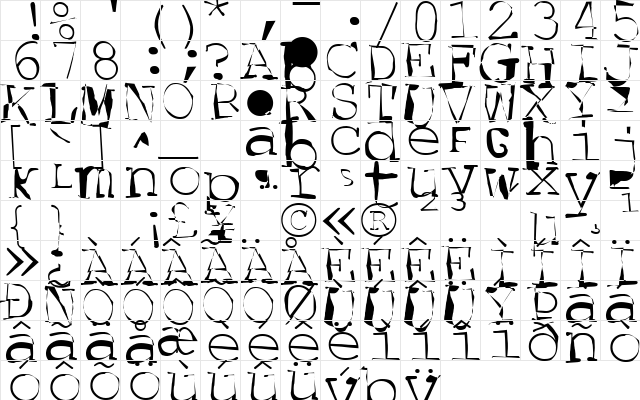
Kids At Work bold
Design Context for Kids At Work Typeface
Kids At Work has an approachable, lighthearted character — its loose, expressive forms are well-suited to children's content, casual branding, and fun-first design.
Font Pairing: Pairs well with a rounded or humanist sans for body copy, maintaining the friendly tone without relying on Kids At Work to carry extended reading.
Pro Tip: Use Kids At Work at larger display sizes where its expressive character can land. Pair with a clean, simple sans for body copy to maintain readability.